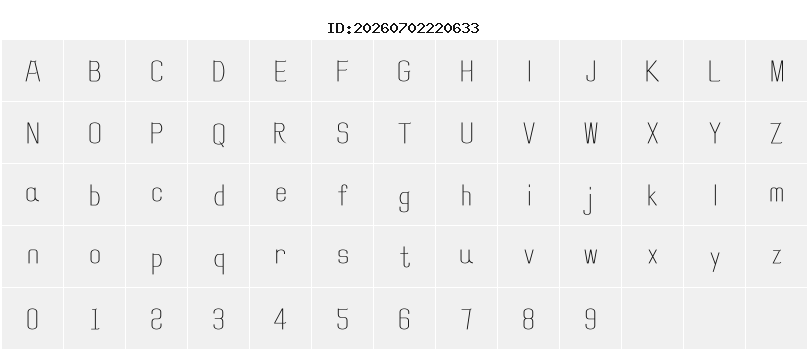
172-上首木兰体 Preview
• Font Name: 172-上首木兰体
• Font ID: 172-SSMuLanti:Version 4.00
• Full Font Name: 172-上首木兰体
• Version: Version 4.00 August 30, 2022
• PostScript Name: 172-SSMuLanti
• Character Count: 7567
• Manufacturer: 上首造字
About 172-上首木兰体.ttf
172-上首木兰体.ttf is a modern, elegant sans-serif font designed for ultimate readability and visual harmony. Perfect for branding, headlines, web design, and print materials.